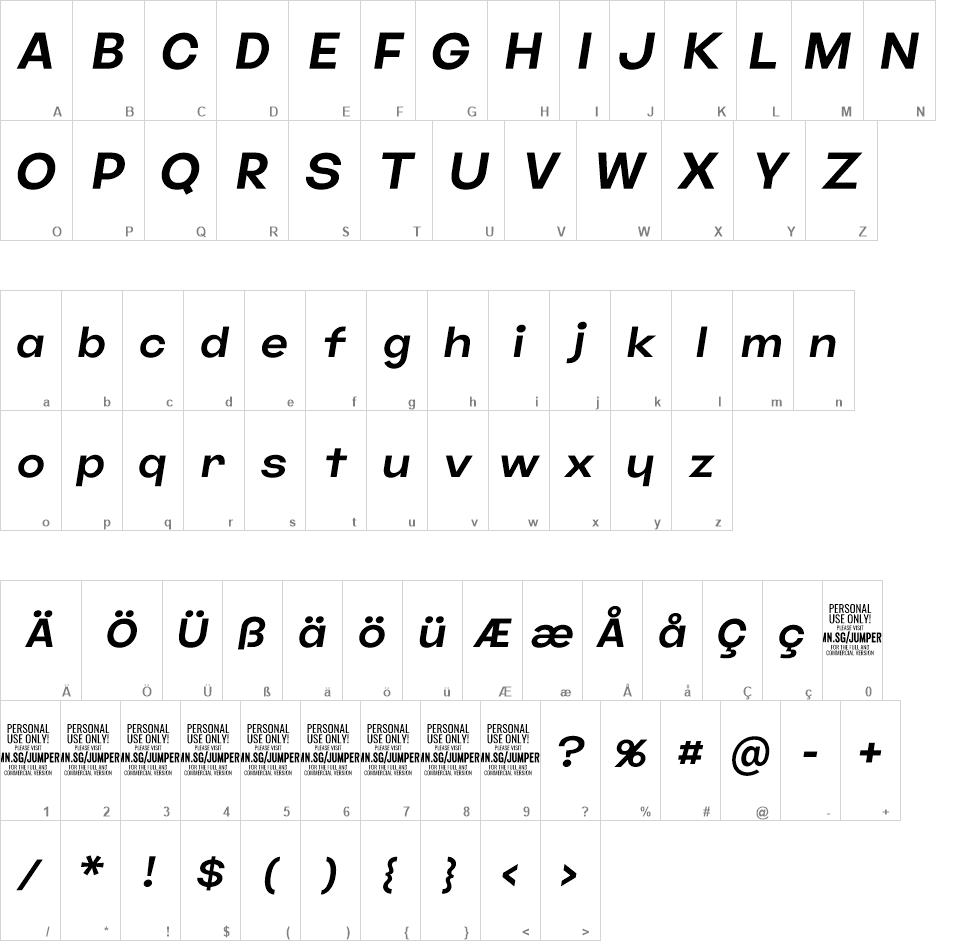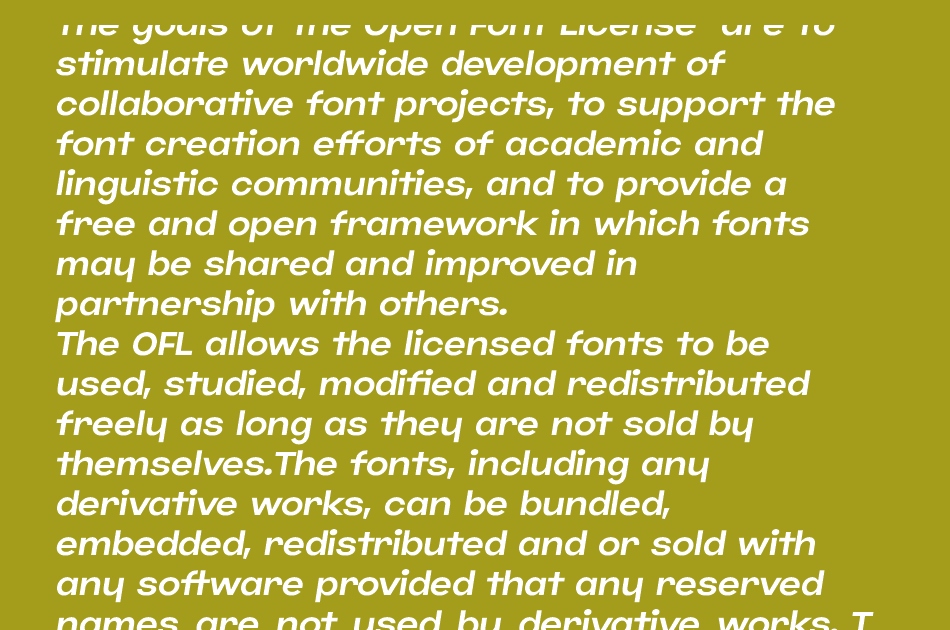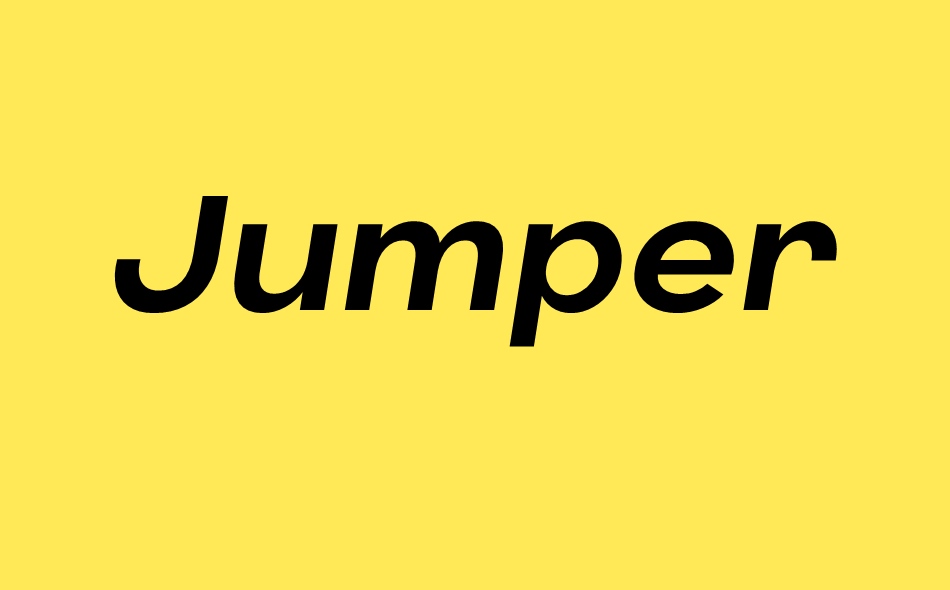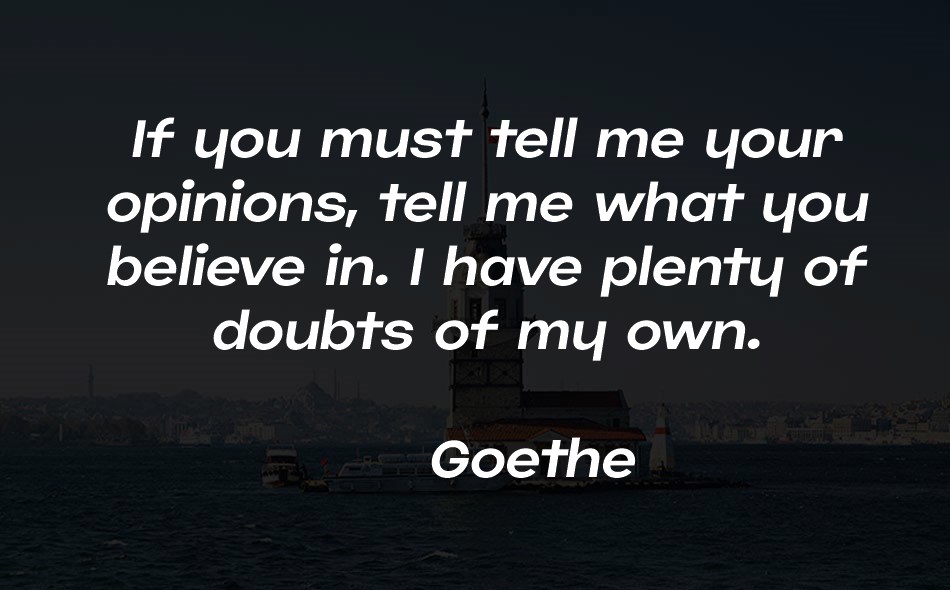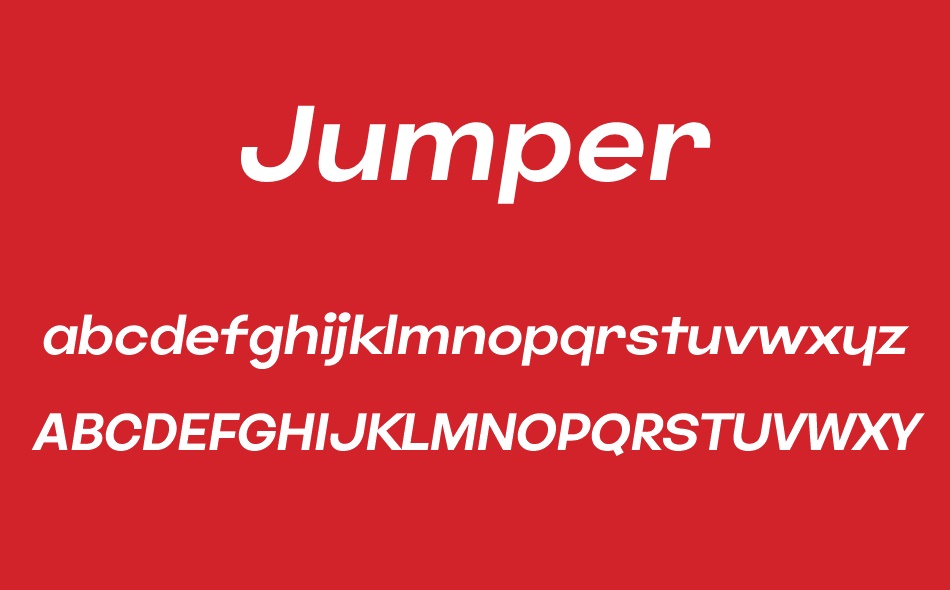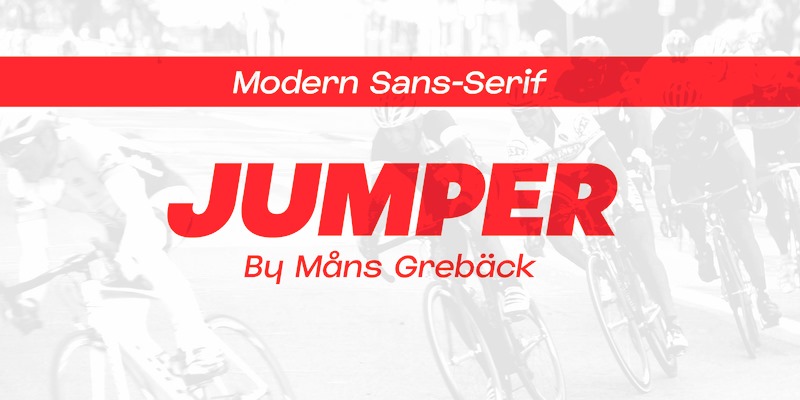
Jumper font
Jumper is an optimistic sans-serif typeface family.
Drawn and created by Mans Greback between 2019 and 2021, Jumper is a speedy, naive type for logotypes, headlines and body text. The geometric components merge seamlessly with the organic shapes, resulting in a professional but genuine lettering.
With a sport character reminiscent of typography in famous brands such as Nike and Adidas, this type is active, happy and has great velocity.
The twelve complementing styles gives great variety to your design: Thin, Light, Regular, Bold, Extra-Bold, Black, and each weight as Italic.
Also includes a variable font! Only one font file, but the file contains multiple styles. Use the sliders in Illustrator, Photoshop or InDesign to manually set any weight and slant. This gives you not only the 16 predefined styles, but instead more than a thousand ways to customize the type to the exact look your project requires.
The font is built with advanced OpenType functionality and has a guaranteed top-notch quality, containing stylistic and contextual alternates, ligatures and more features; all to give you full control and customizability. It has extensive lingual support, covering all Latin-based languages, from North Europe to South Africa. It contains all characters and symbols you'll ever need, including all punctuation and numbers.